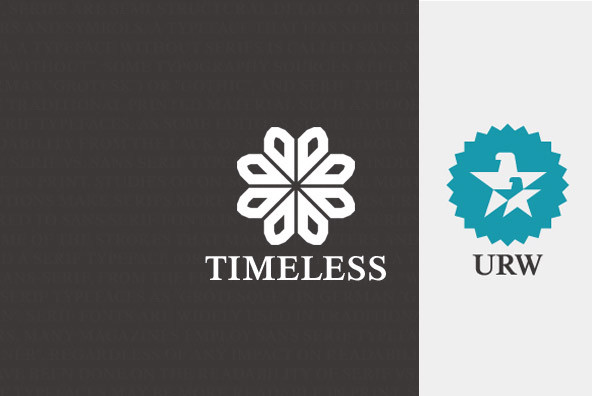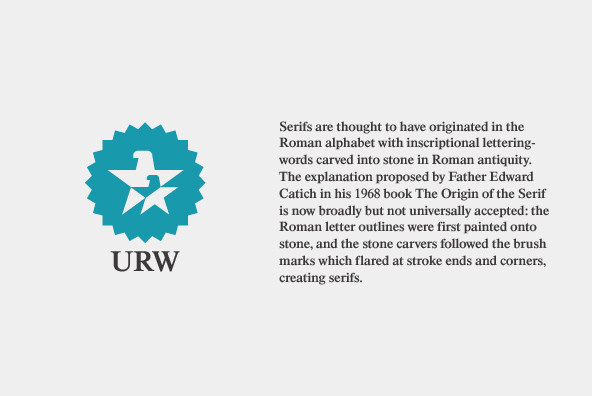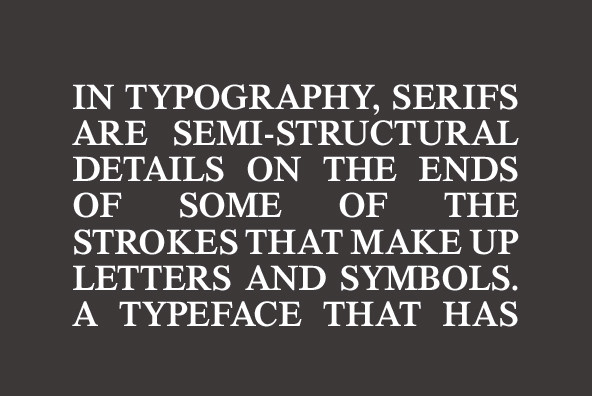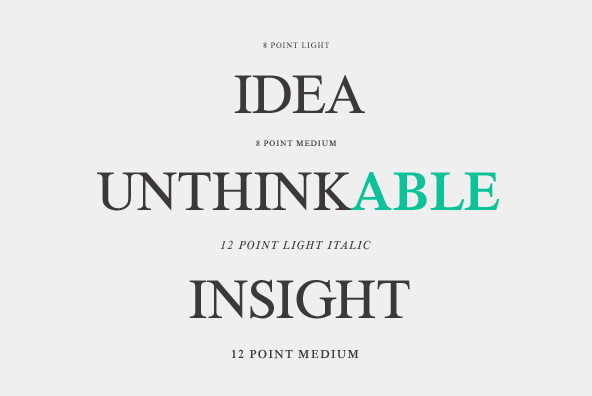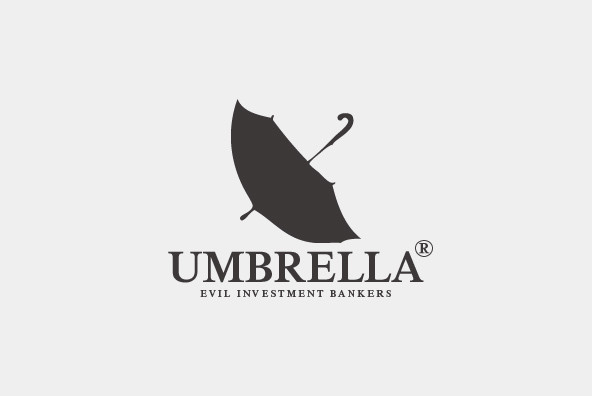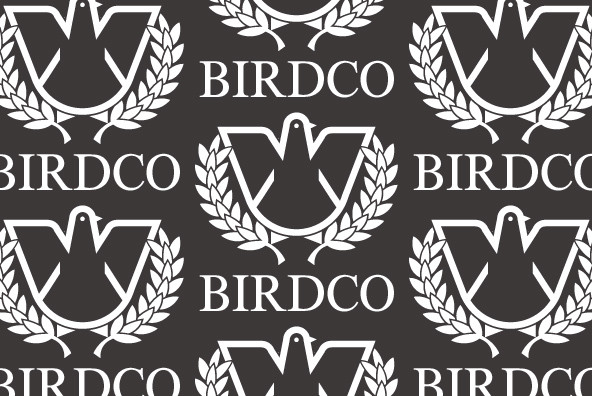
Timeless Font Family
Designed by Typoart Studio in 1995, Timeless is a classic serif font release by URW. Contains language support for West, East, Turkish, Baltic, and Romanian.